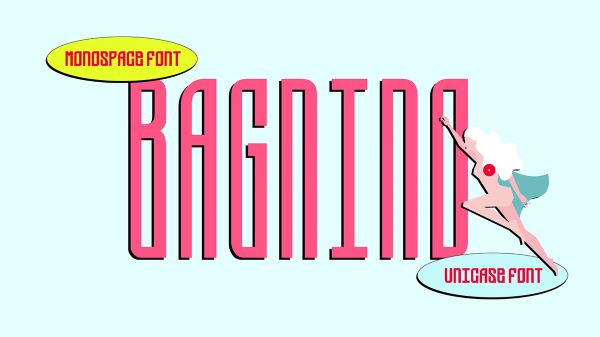
Bagnino Font
Bagnino by Sabrina Bakhta Ekecik is a free monospace font with a deeply considered conceptual foundation — designed specifically for the historic municipal public bathhouses of Paris (the Bains Douches municipaux), institutions created to provide running water to those without it. The letterforms are built directly on the grid of shower stall tiles, and the font is offered in four sizes that add an ornamental, architectural dimension to the type system. Available free for personal use.